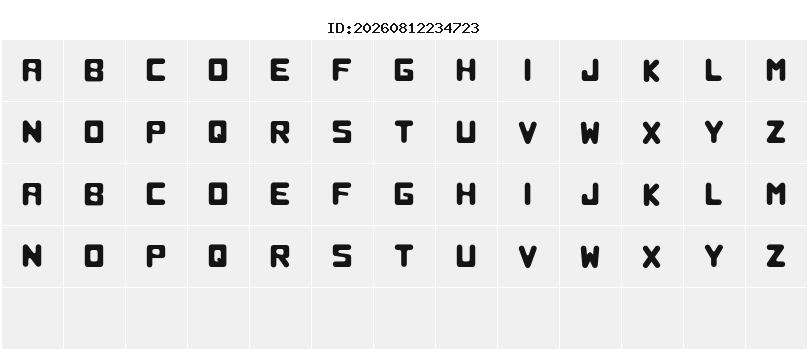
Repro 89 Preview
• Font Name: Repro 89
• Full Font Name: Repro89-Regular
• PostScript Name: Repro89-Regular
• Designer: sloper-design
• Manufacturer: Guido Holz
About Repro 89.otf
Repro 89.otf is a modern, elegant sans-serif font designed for ultimate readability and visual harmony. Perfect for branding, headlines, web design, and print materials.